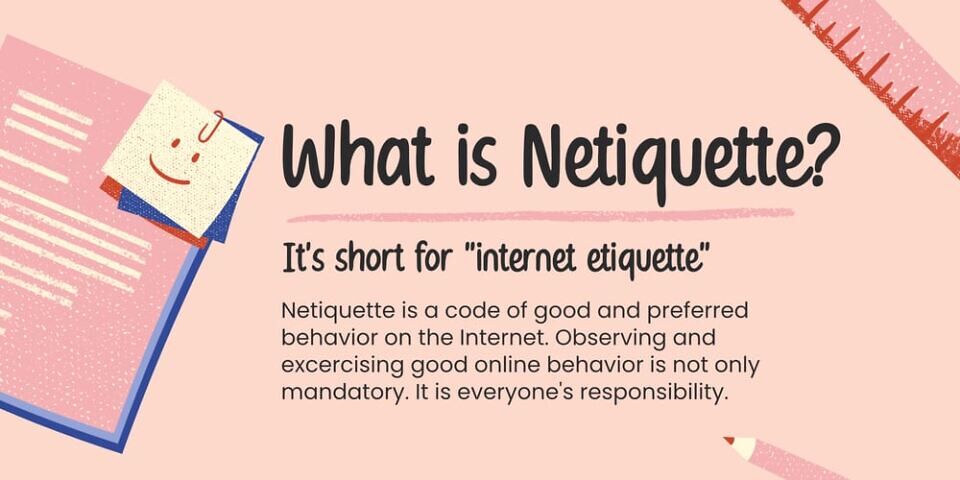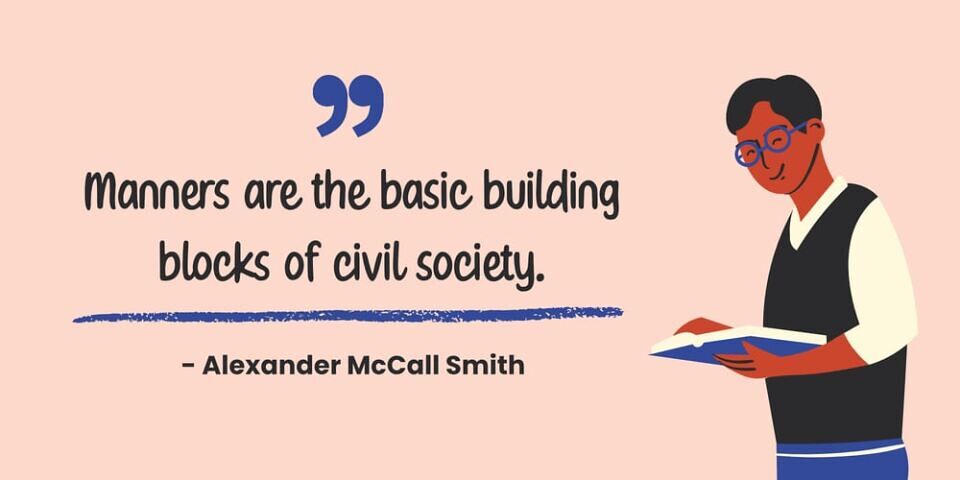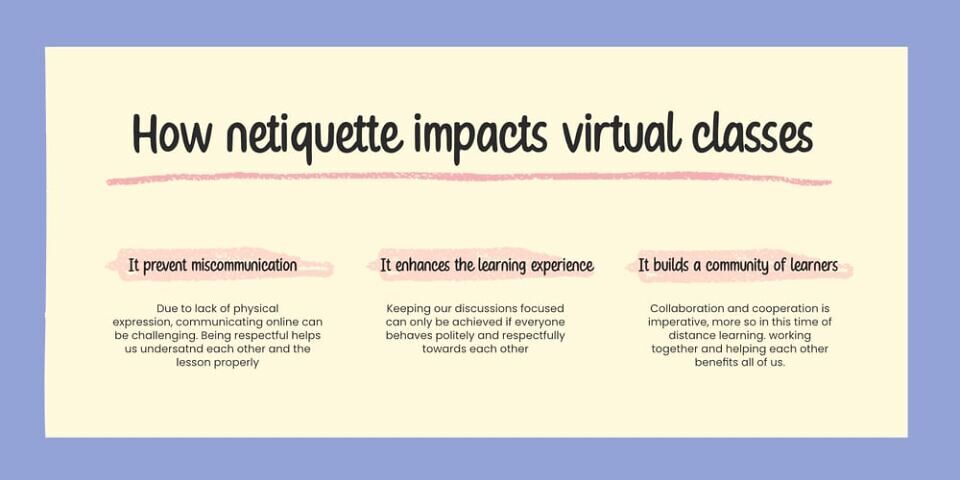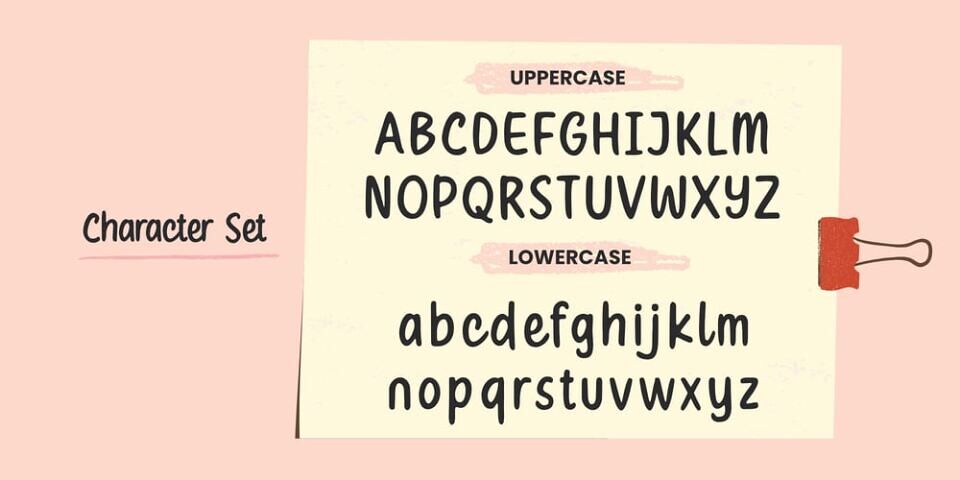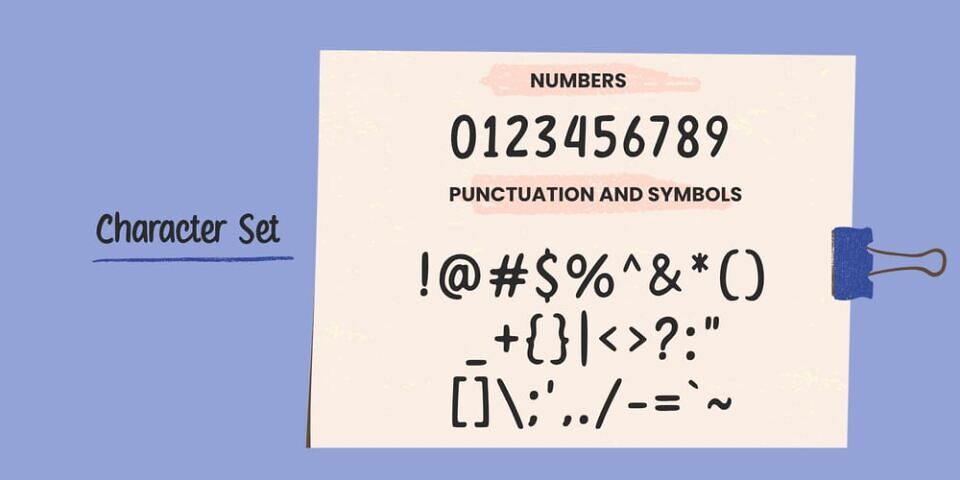
Shifty Notes is a cute and simple lettered handwritten font designed by Ali Hamidi. Whether you use it for cartoon related designs, children games or just any creation that requires a lovely touch, this font will be an amazing choice.